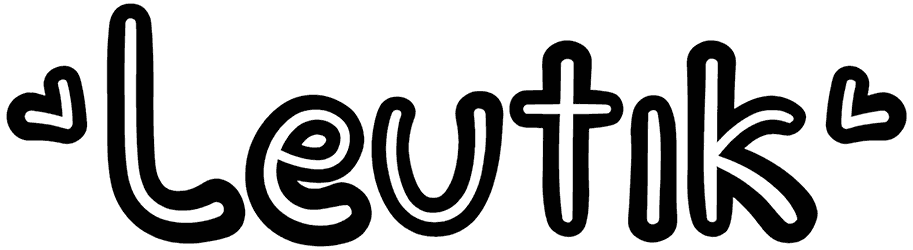
Leutik Font
If you’re wanting to stand out from the crowd while designing fun artwork, posters, publications, or presentations, give Leutik, a love font with a beautiful and entertaining style, a try. Fortunately, Leutik’s three sorts make up for the absence of numerical characters and lend a more whimsical tone to your project. Check out our ever-growing catalog to find more like this outline font.